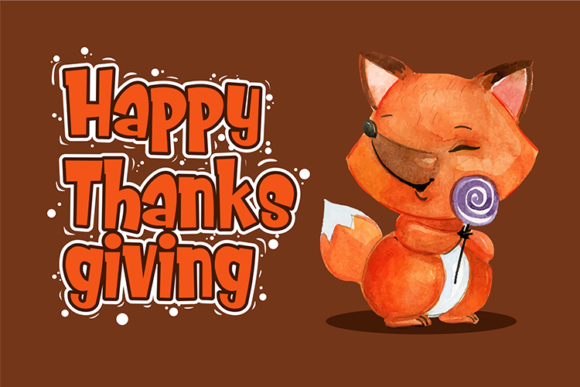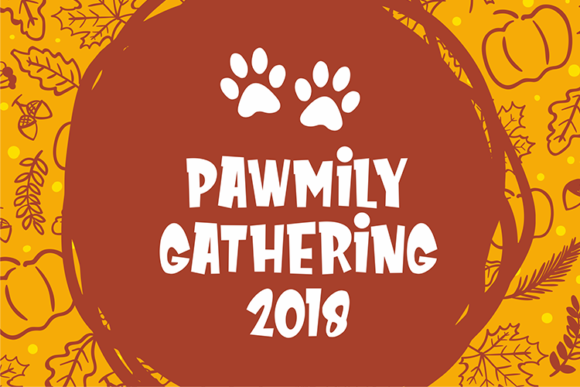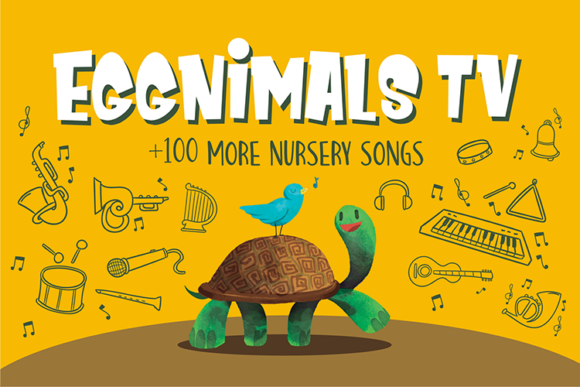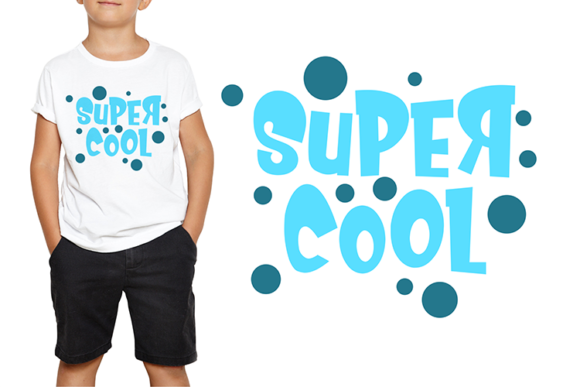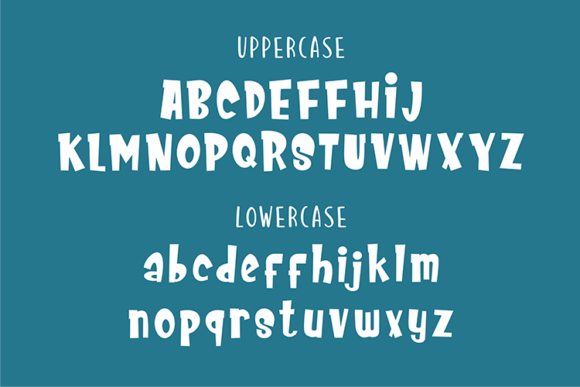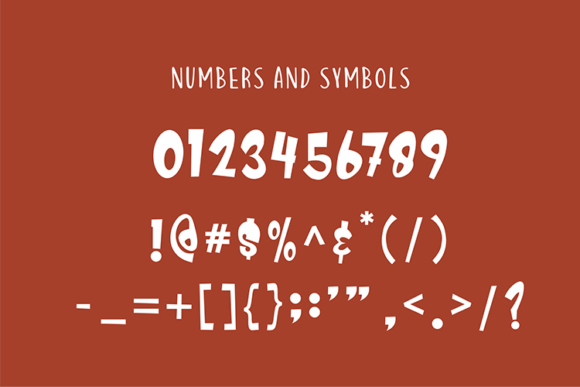
Introduction to Meowza Font
Have you ever found yourself doodling in a notebook, letting your imagination run wild as you create whimsical characters and playful illustrations? For many of us, those carefree moments of creativity are what spark some of our most innovative ideas. And for designers, having the right tools at their disposal can make all the difference in bringing those ideas to life. That’s where the Meowza Font comes in – a playful and fancy font that’s sure to add a touch of magic to any creative project.
With its high-quality design and transparent background, the Meowza Font is the perfect resource for designers looking to elevate their work. Whether you’re working on a children’s book, a brand identity, or a fun social media campaign, this font is sure to bring a smile to your face and a touch of whimsy to your design. And the best part? It’s available for free download, making it an accessible and valuable addition to any design arsenal.
Key Features of Meowza Font
- High-quality, customizable font for creative projects and design resources, available for free download.
- Unique, playful design with a transparent background, perfect for adding a touch of whimsy to your work.
Honest Review: Meowza Font
I recently stumbled upon the Meowza Font while searching for a unique design resource to elevate my creative project. I must say, I was impressed by its quirky charm and versatility. ✨
The font features a high-quality design with clean lines, making it suitable for various applications, from graphic design to web development. The transparent background allows for seamless integration with any visual element, adding to its versatility. ✨
Here are some key features that caught my attention:
- Unique and playful design
- High-quality vector graphics
- Some letters may appear slightly irregular, which could be a concern for precise typography
- The font may not be suitable for formal or corporate designs
Overall, I’d say the Meowza Font is a great addition to any designer’s toolkit, especially for creative projects that require a touch of whimsy. It’s a free download option that offers great value for its unique features. ⚠️
The Meowza Font is ideal for use in social media graphics, blog posts, and other digital content. It’s also perfect for creating logos, posters, and other graphic designs.